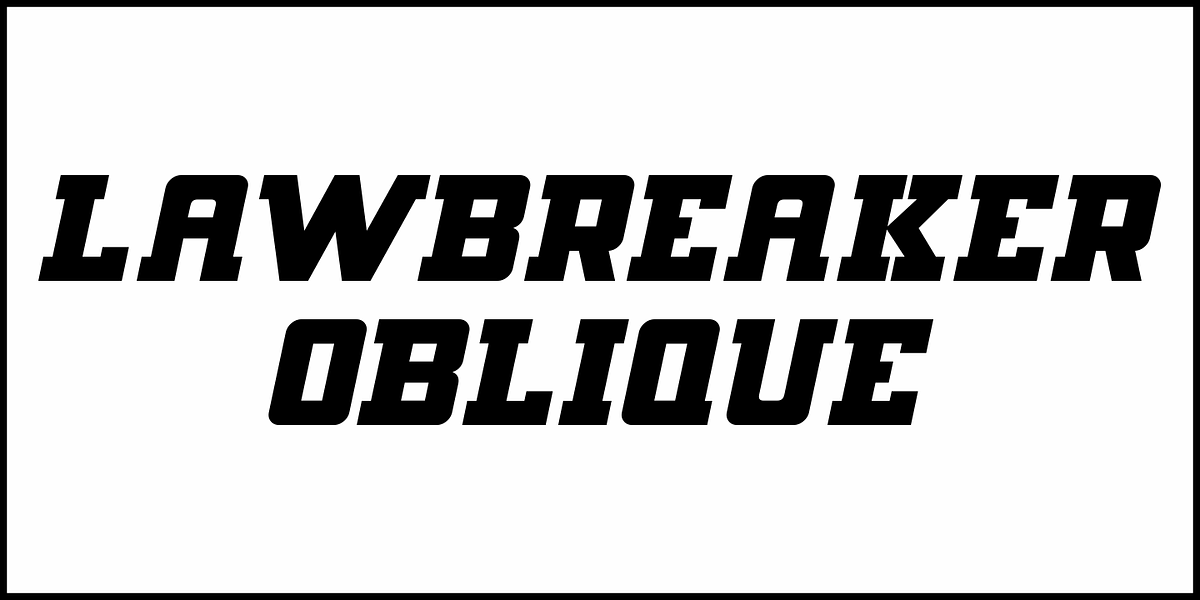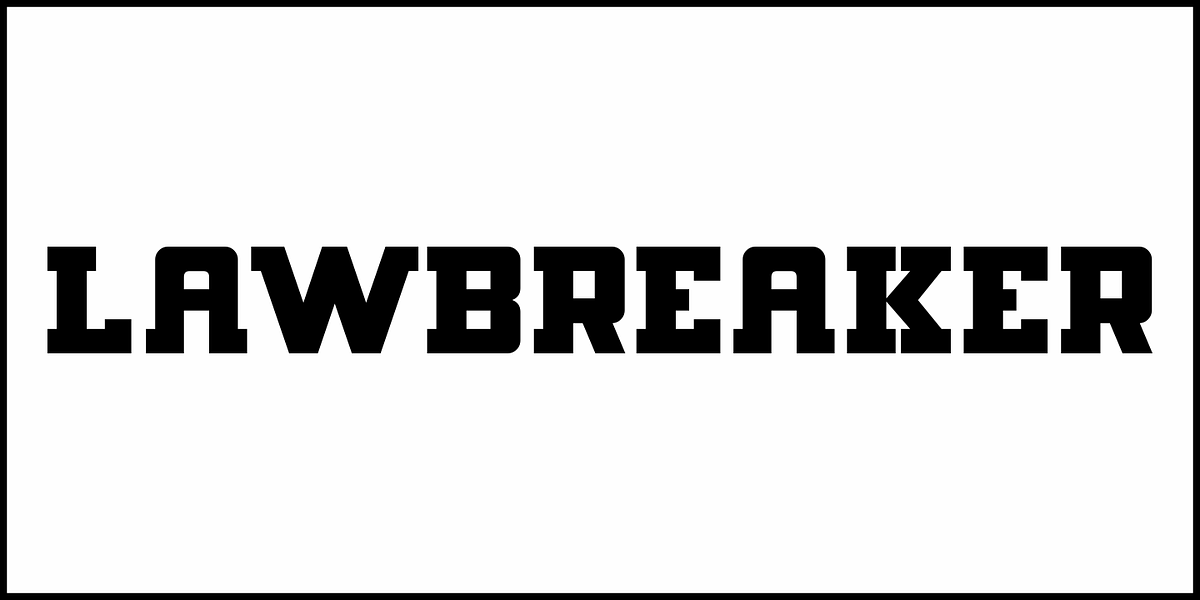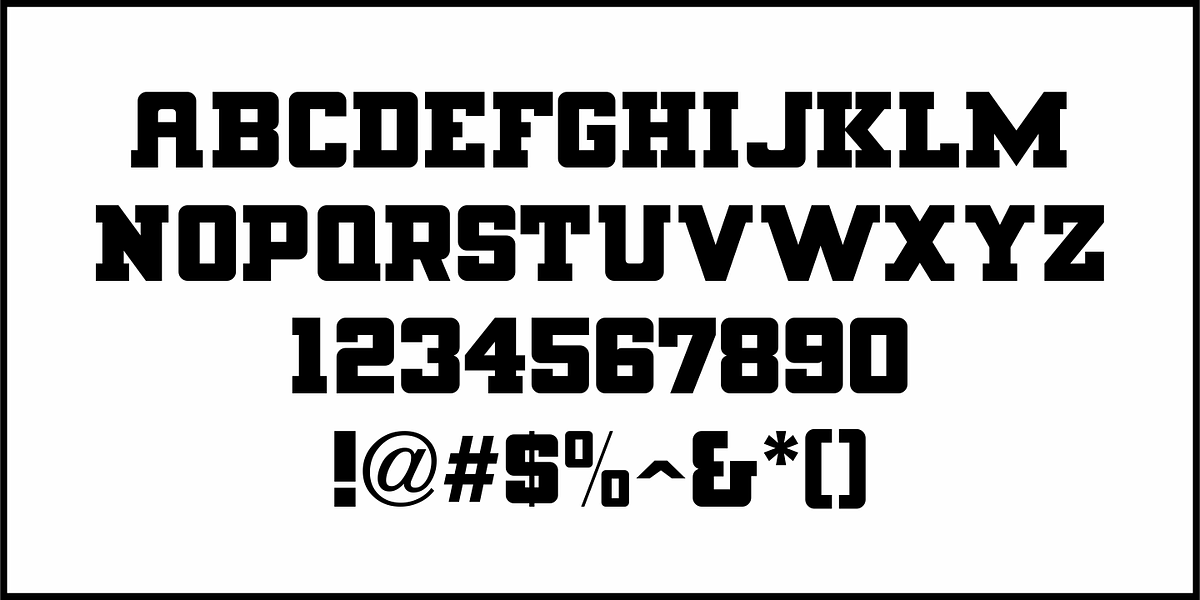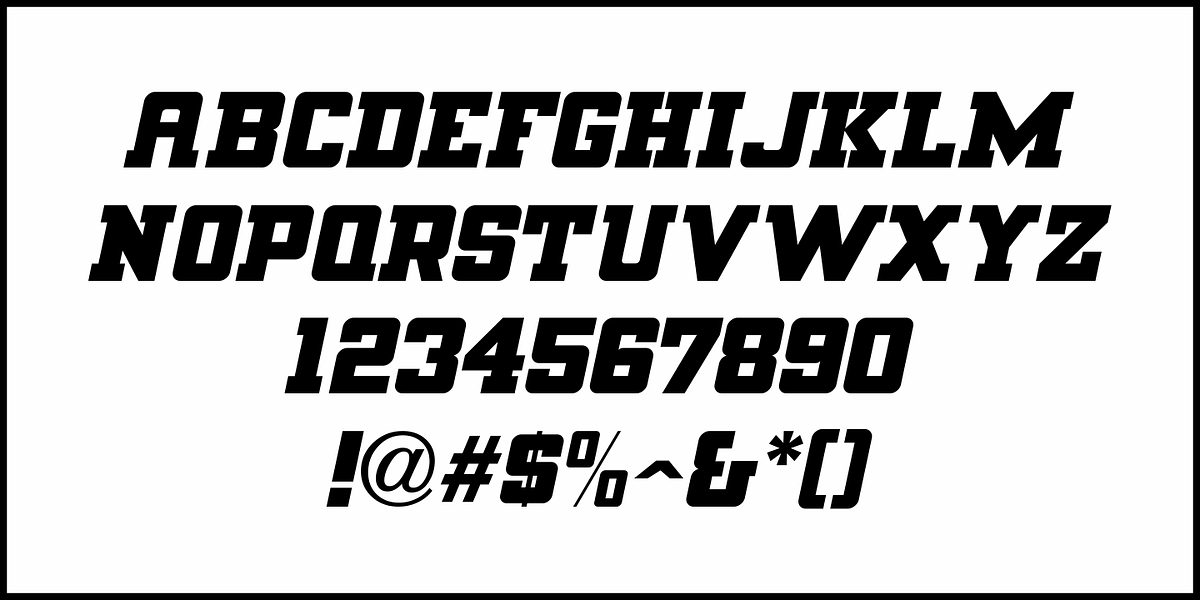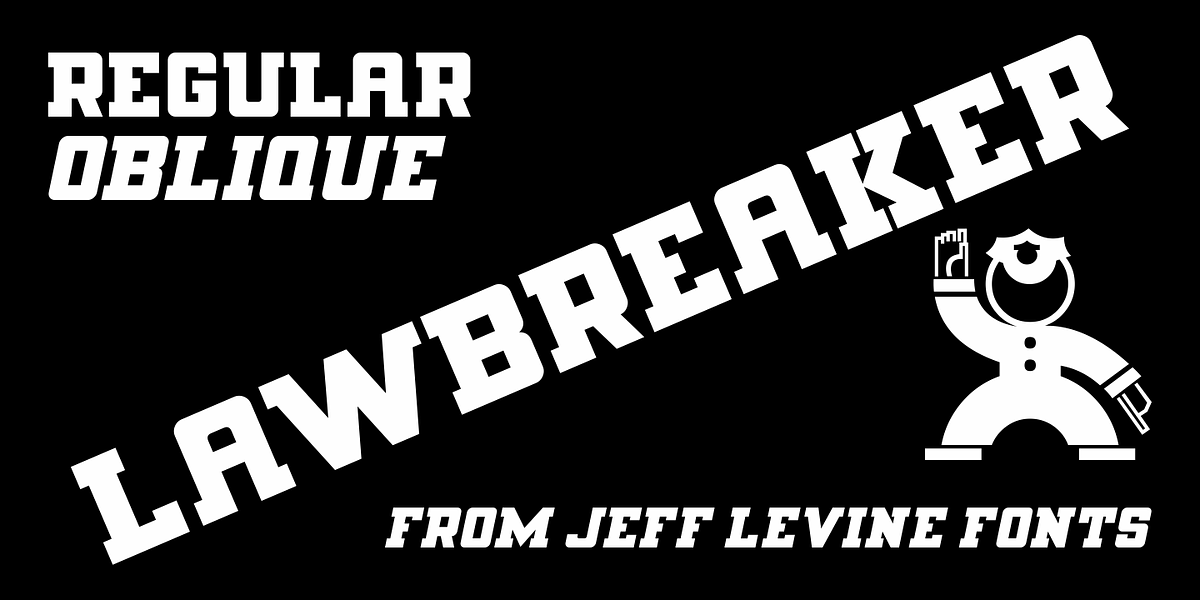
Lawbreaker JNL
The December, 1935 movie poster for James Cagney in “Public Enemy” has its title hand lettered in a bold, squared, slab serif type style.
Now digitally recreated as Lawbreaker JNL, it is available in both regular and oblique versions.